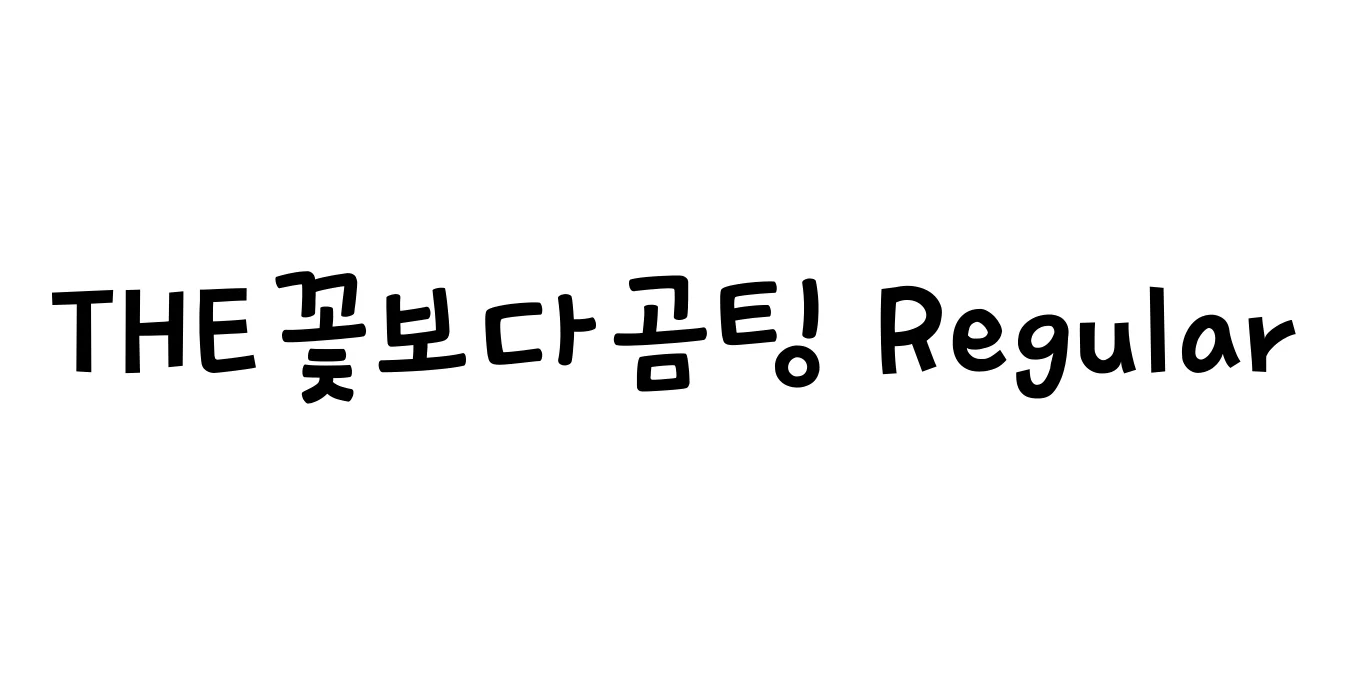
THE꽃보다곰팅 Regular
Designed by THE Design
| Category | Handwritten / Decorative |
THE꽃보다곰팅 Regular (translated as "Bear more than Flowers") is a highly popular Korean script font known for its endearing and playful handwritten style. Developed by THE Design, it was created to capture the whimsical essence of casual penmanship, featuring rounded terminals and a rhythmic stroke weight that gives text a friendly, approachable appearance. It has gained significant traction in the digital landscape as a staple for users seeking a "cute" and personalized aesthetic for their electronic devices.
This typeface is particularly well-known for its integration into mobile FlipFont services, allowing users to customize their smartphone interfaces with a touch of personality. Beyond mobile UI, the font's excellent legibility and charming design make it a go-to choice for digital journaling, decorative headers, and social media branding. It effectively balances decorative flair with clarity, ensuring that even longer passages of text remain readable while maintaining its signature bubbly character.
THE꽃보다곰팅 Regular Best Uses
Ideal for system-wide font replacement on Android devices via FlipFont.
Perfect for creating engaging and cute captions for Instagram or TikTok.
Well-suited for use in digital planners, journals, and note-taking apps.
Adds a personal and warm touch to informal digital invitations and cards.